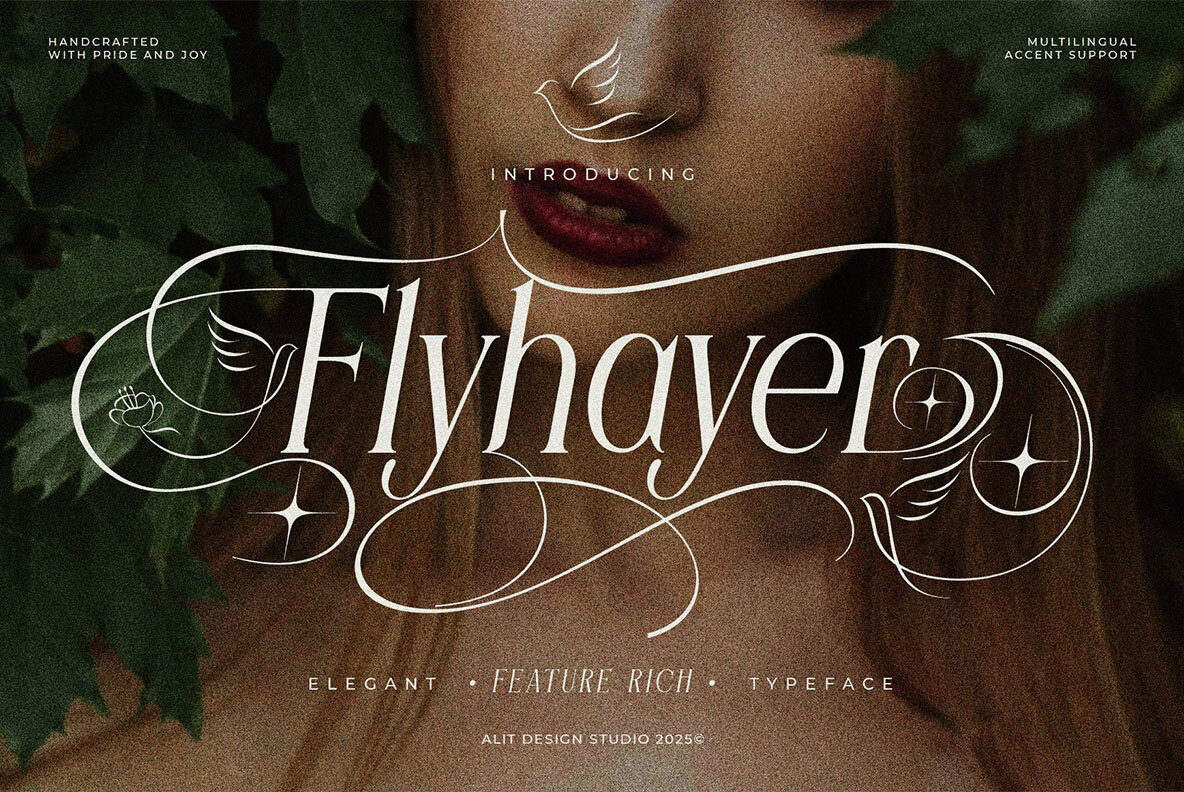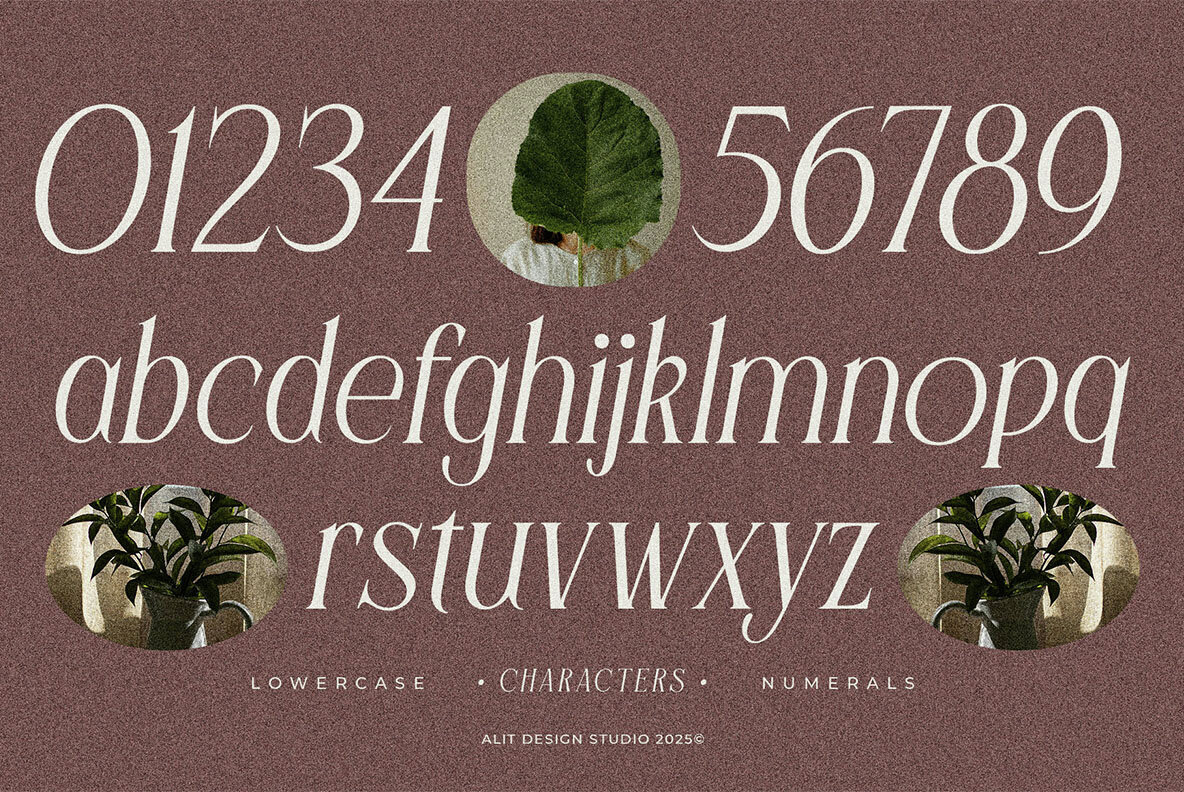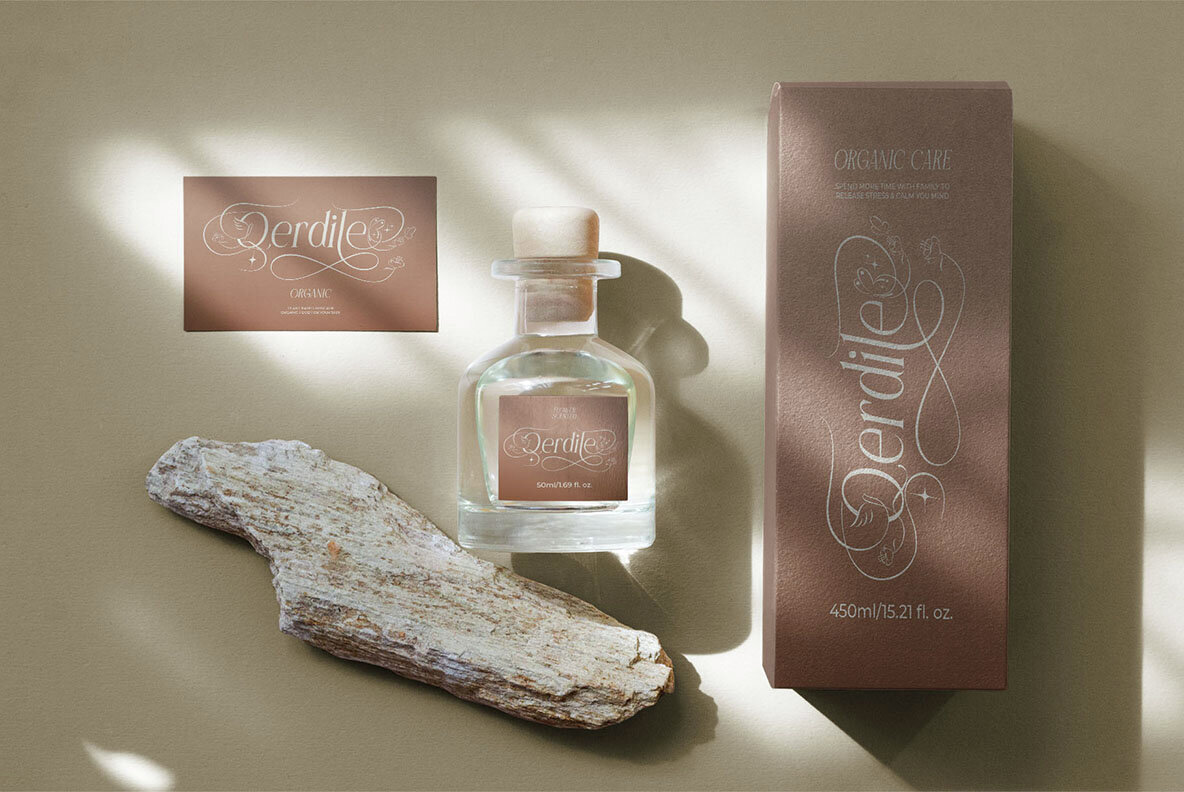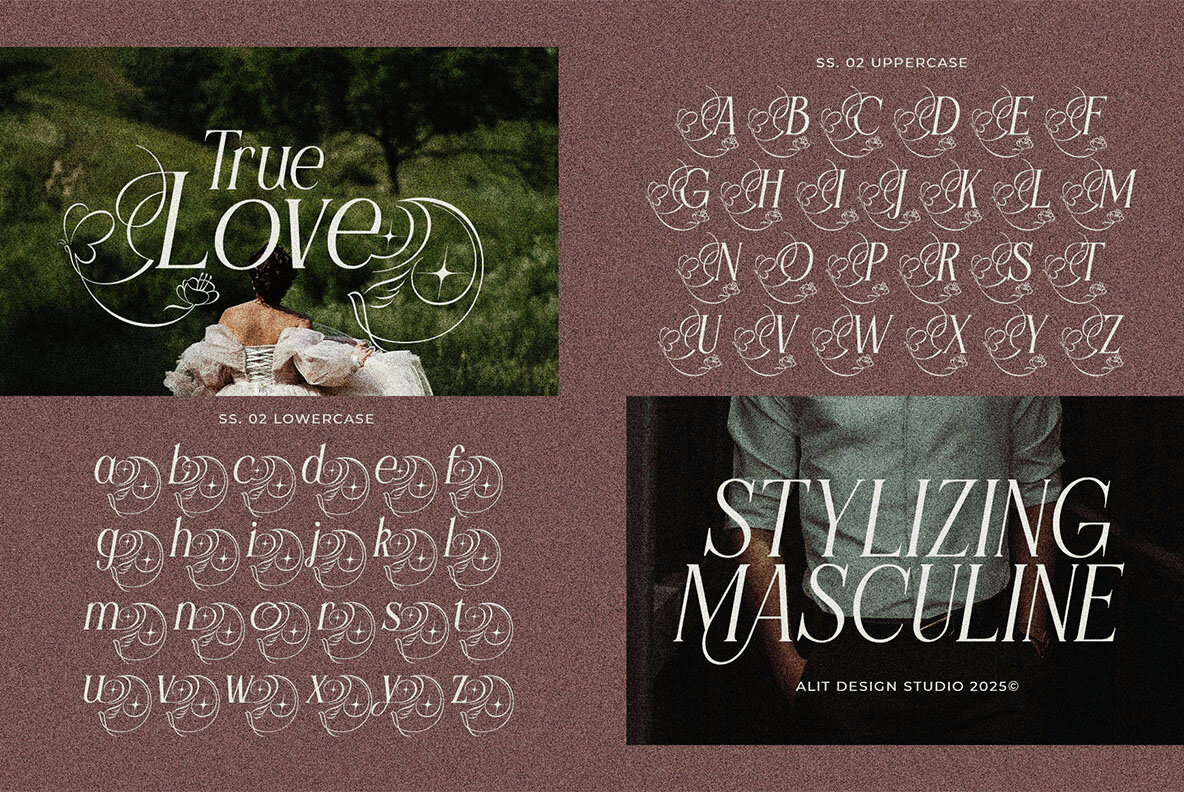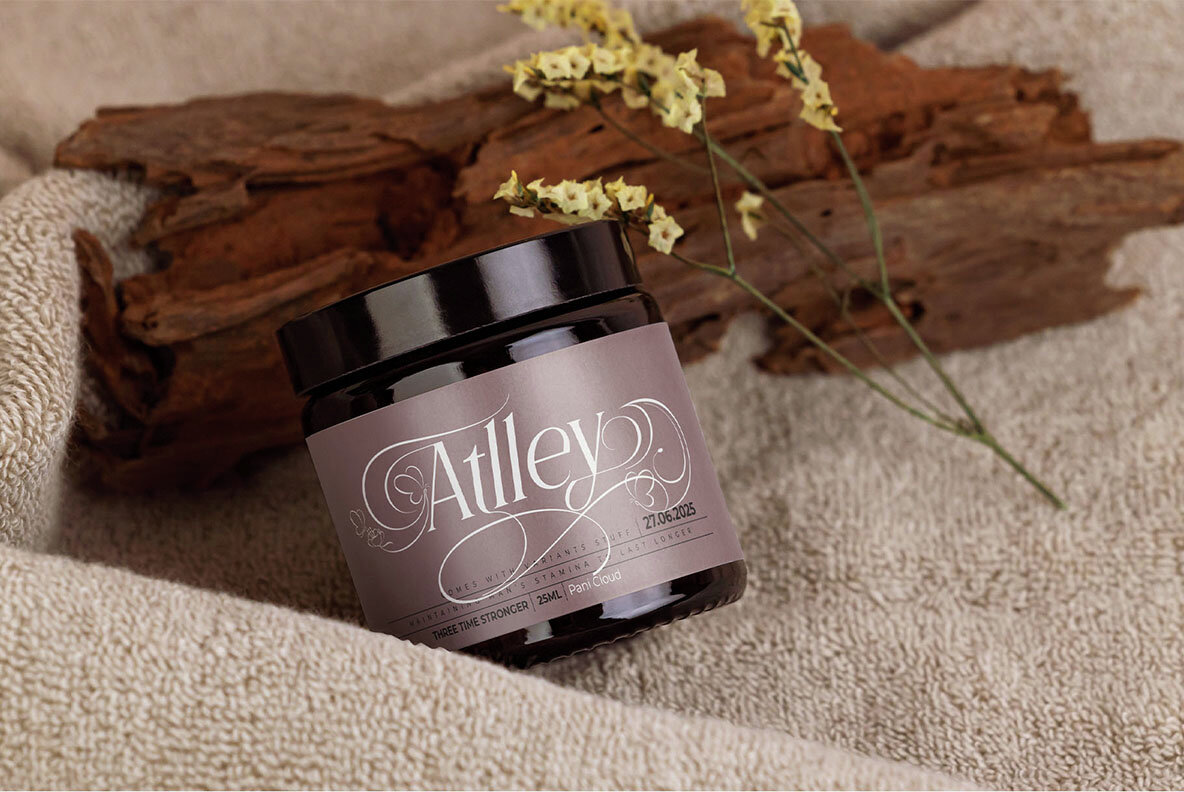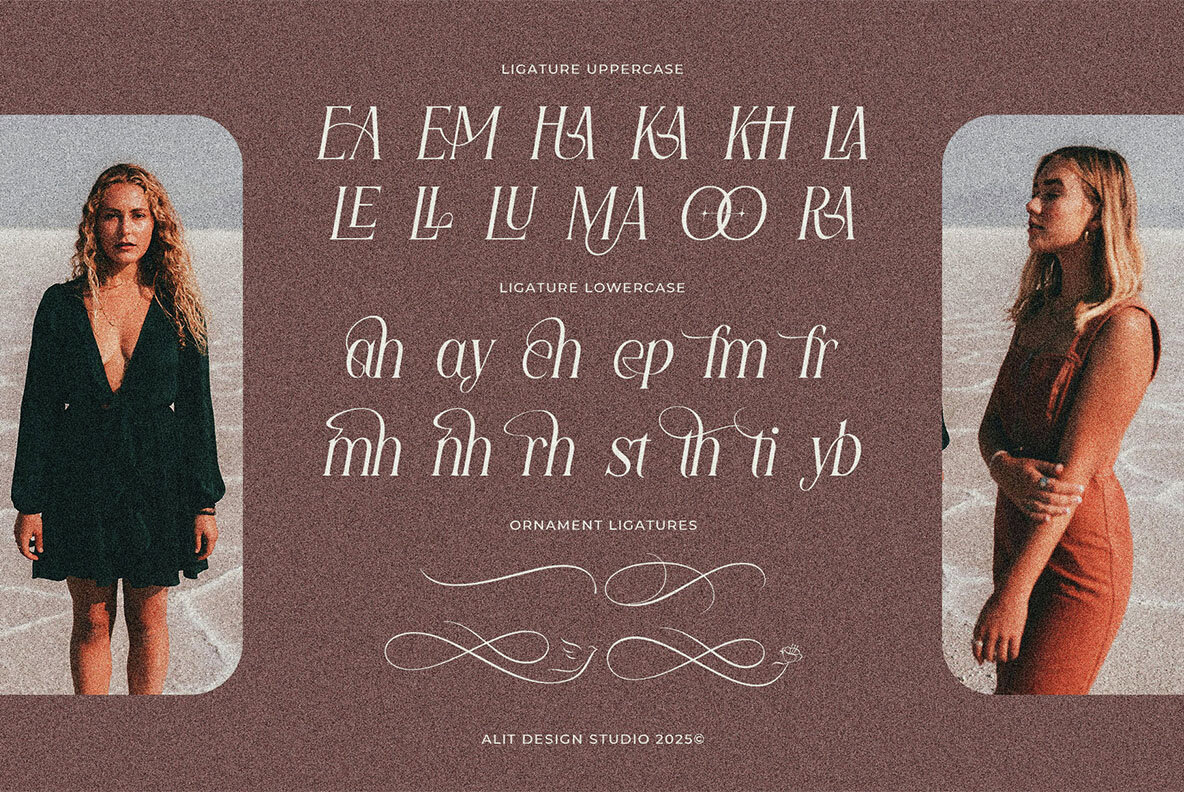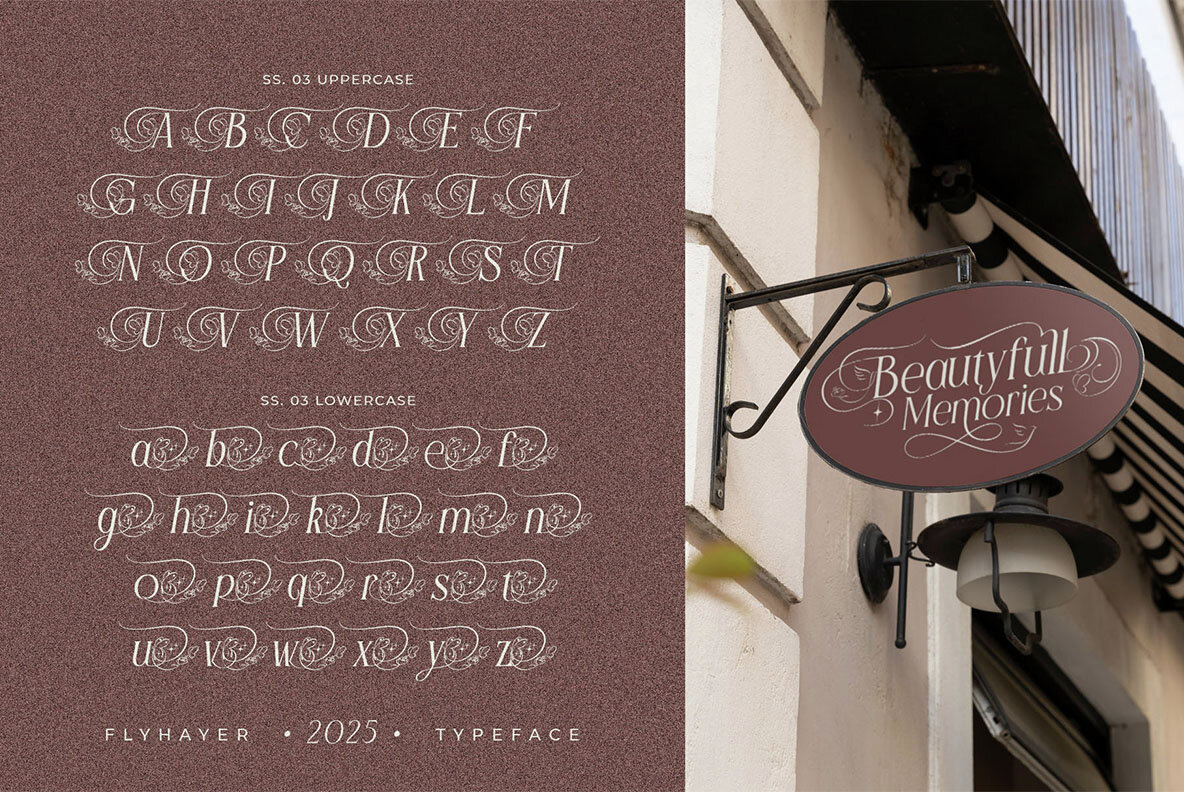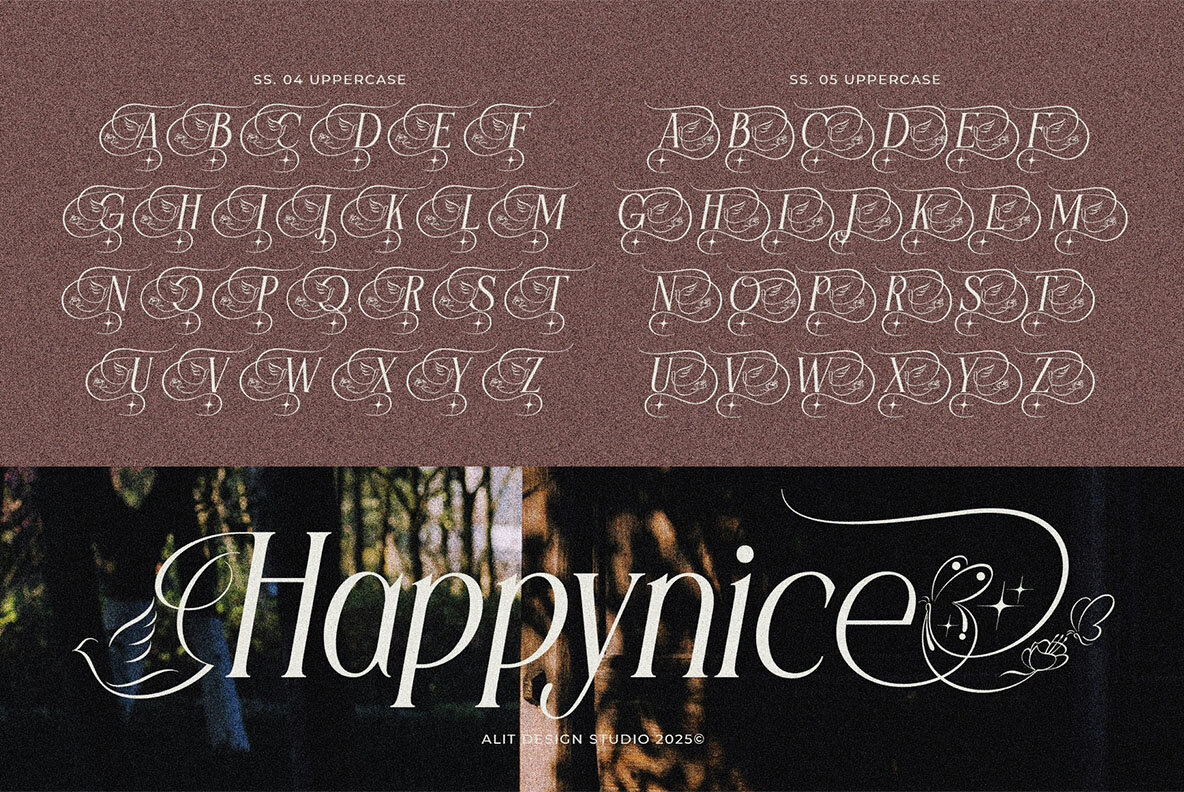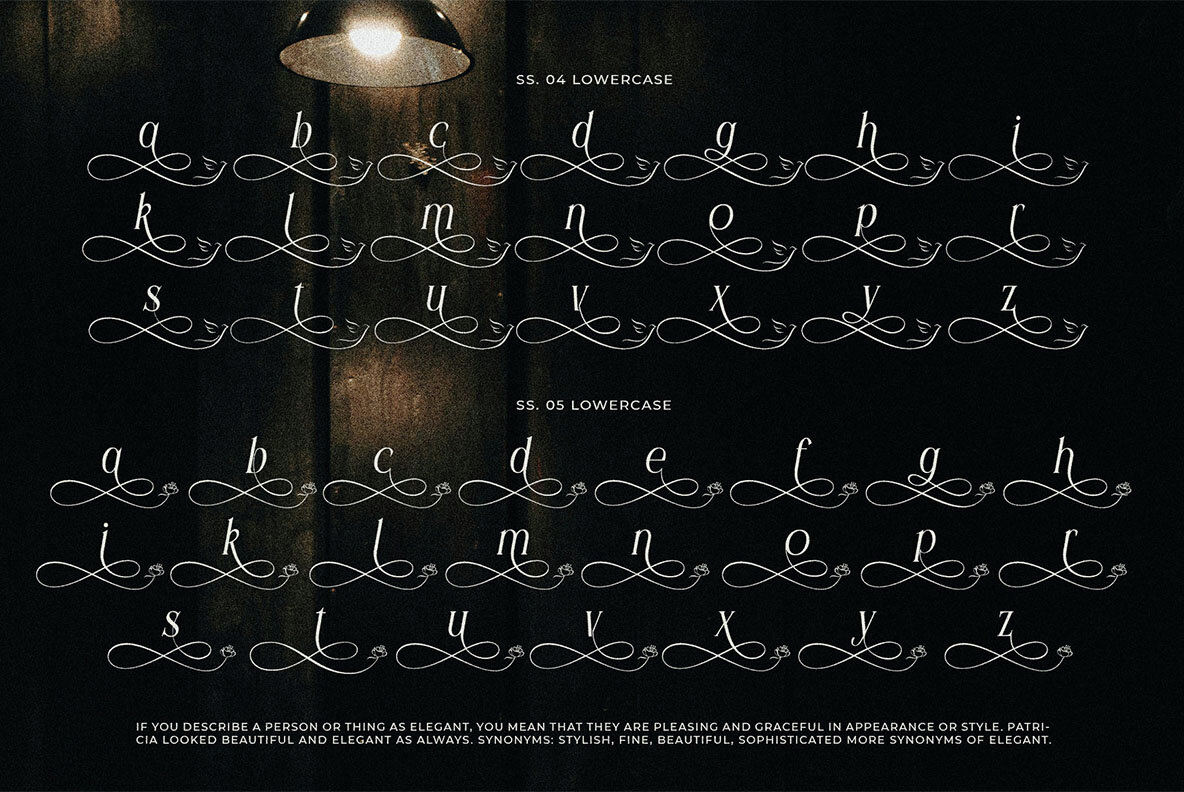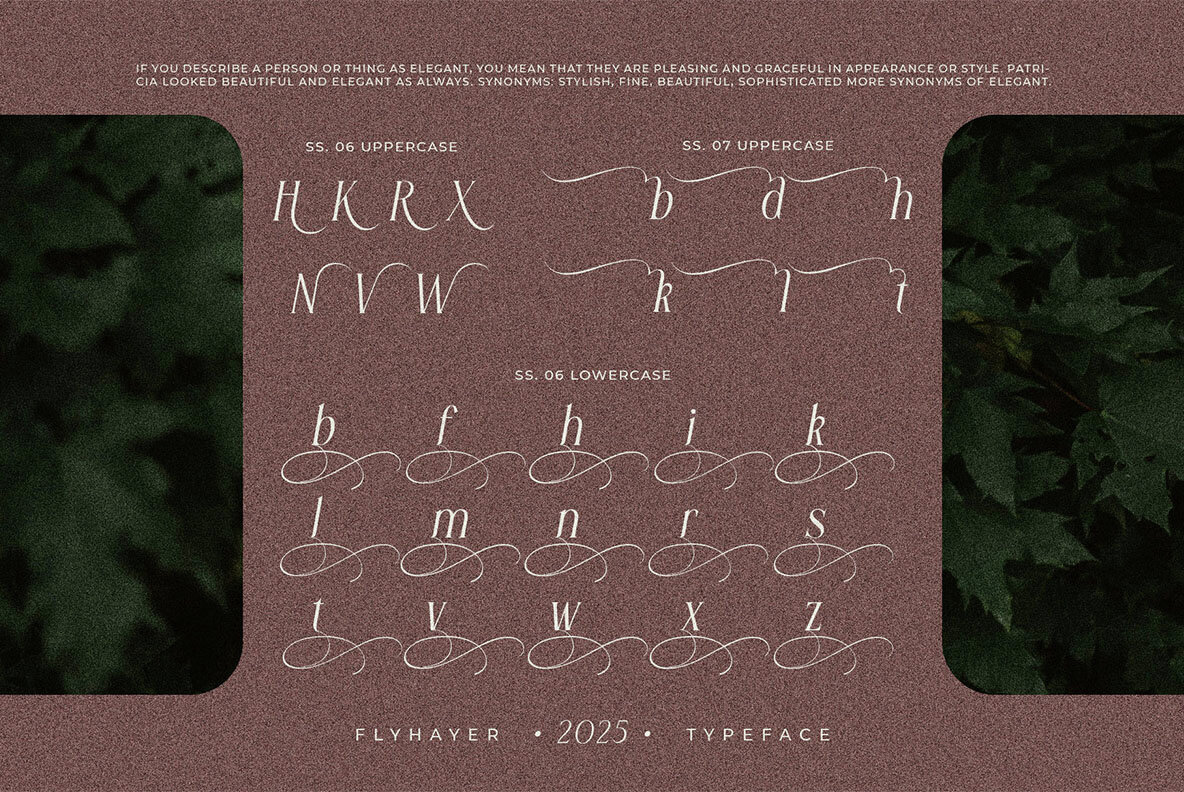
Flyhayer Font
Flyhayer Regular
The Flyhayer Typeface brings an exquisite blend of romance and sophistication to typography. This serif font, steeped in classic allure and delicate ornamentation, captures the subtle movements of nature through its artful design. Inspired by elements such as the flutter of butterflies and delicate flowers, Flyhayer stands as more than a typeface—it's a poetic journey in print.Flyhayer Typeface: Embrace Sophisticated Elegance